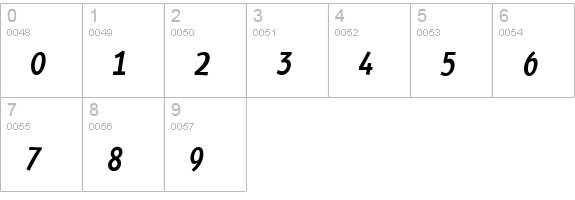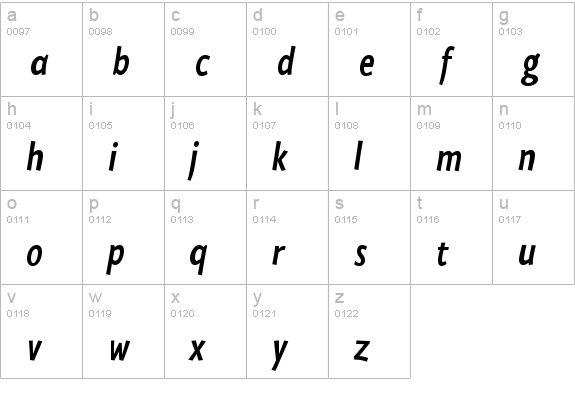
HerbertEF-RegularItalic Font Details
The HerbertEF-RegularItalic font is a versatile and elegant typeface, combining traditional elements with a modern twist. Its italicized design adds a touch of sophistication to any project, making it perfect for use in branding, editorial designs, and more. One of the best features of the HerbertEF-RegularItalic font is that it is completely free to download. This means that you can enhance your creations with this stylish and eye-catching font without having to spend a penny. Simply head over to FontsMarket.com to access the font and start incorporating it into your designs today. The HerbertEF-RegularItalic font offers a unique blend of classic elegance and contemporary flair, making it a must-have for any designer looking to make a statement. With its sleek and stylish appearance, this font is sure to elevate your projects and capture the attention of your audience. Download it for free now and unlock the potential of this stunning typeface.